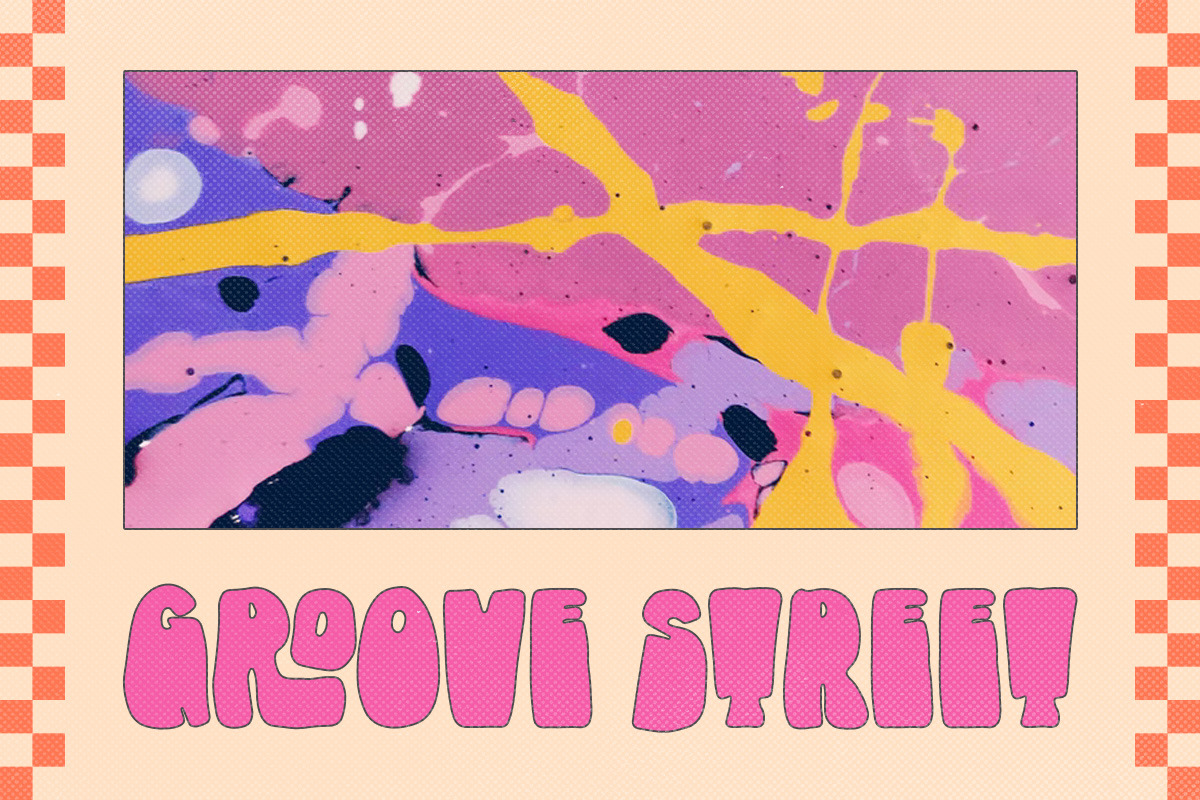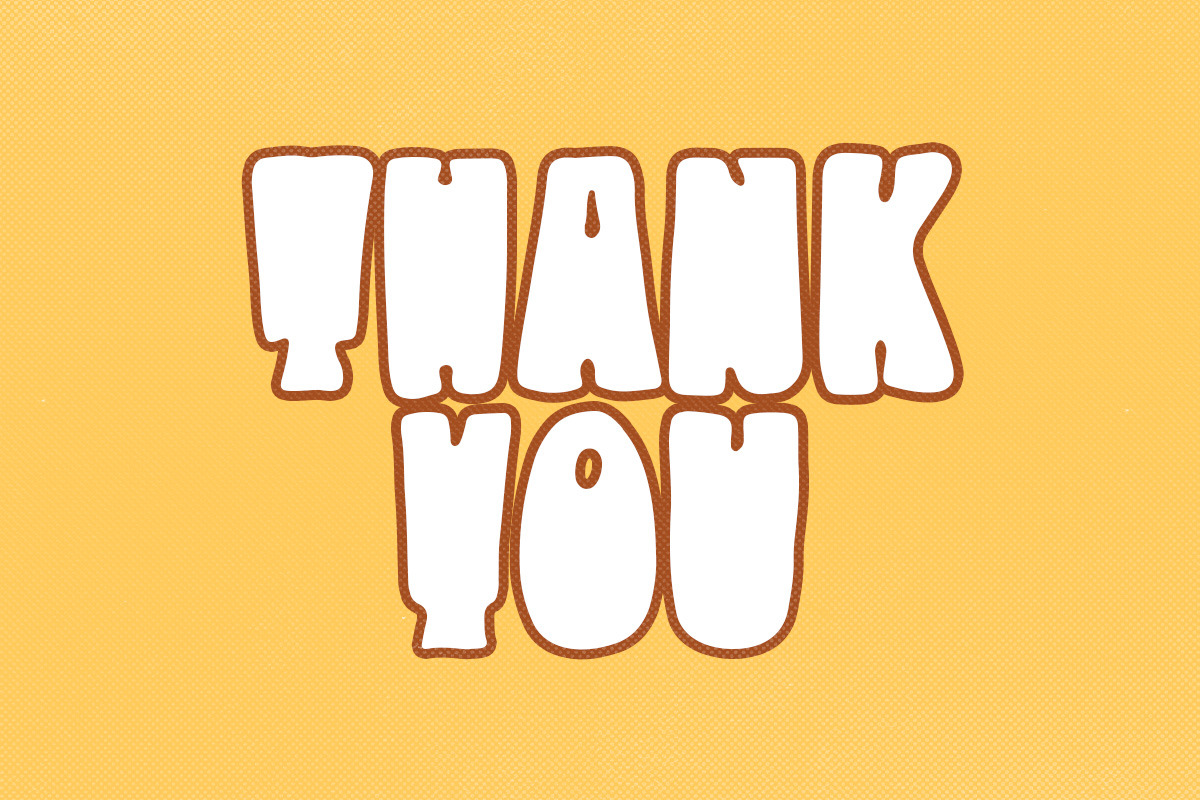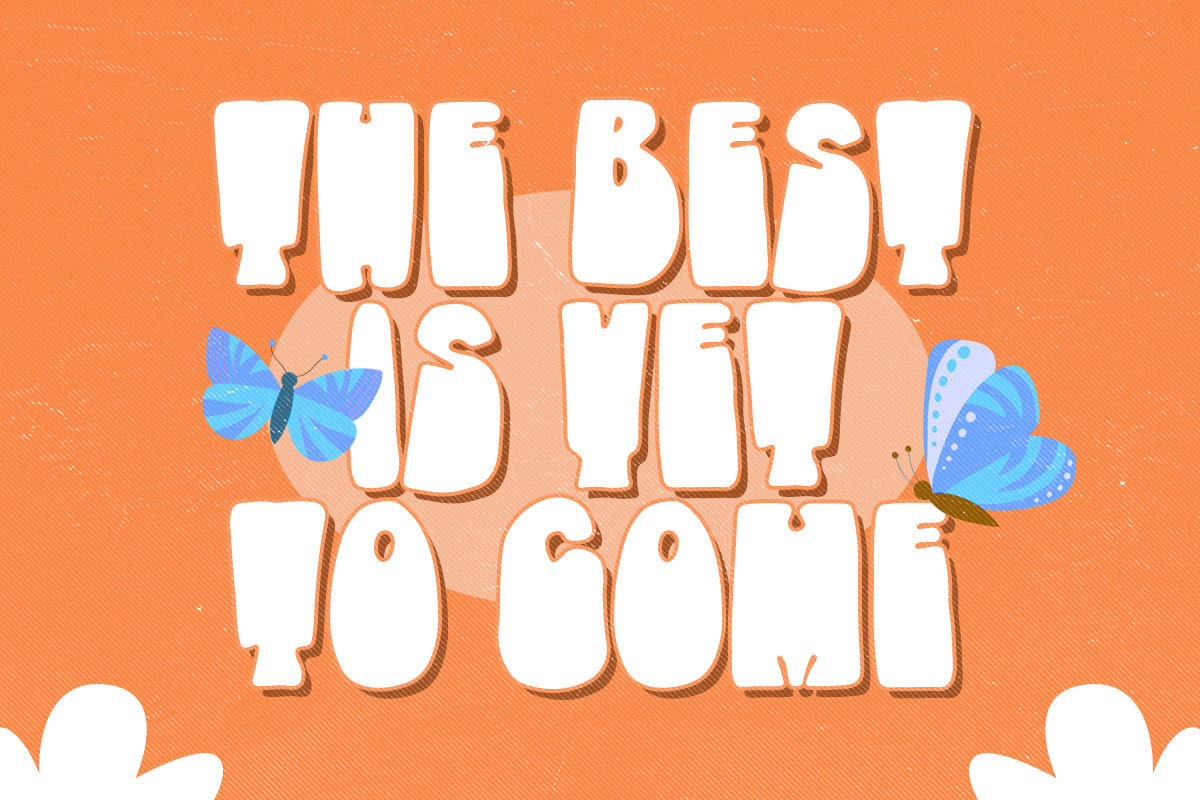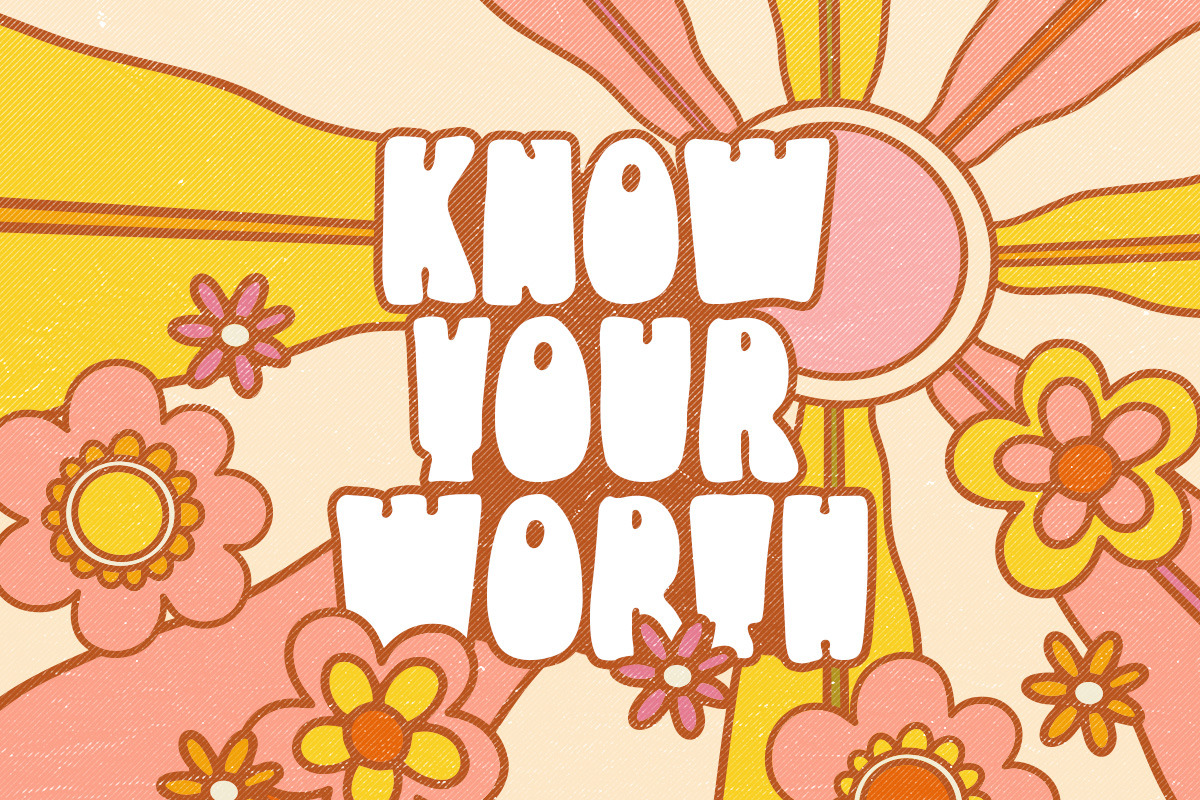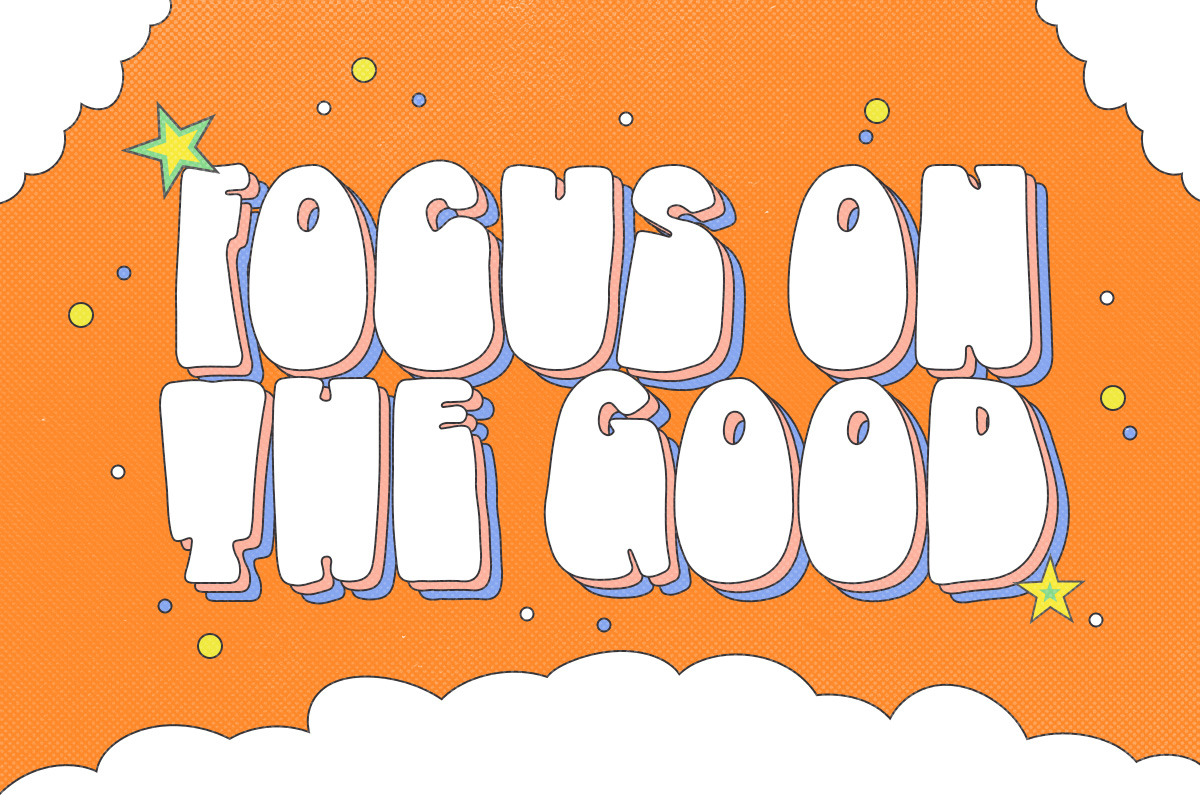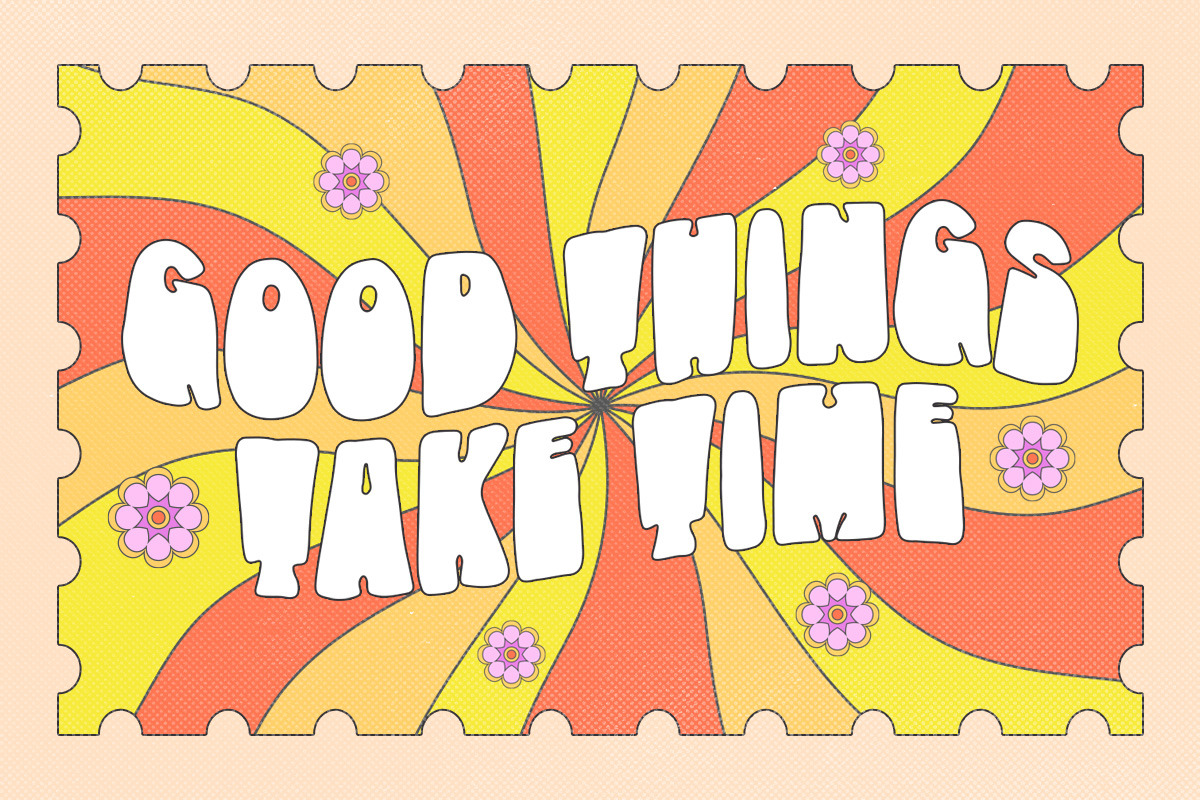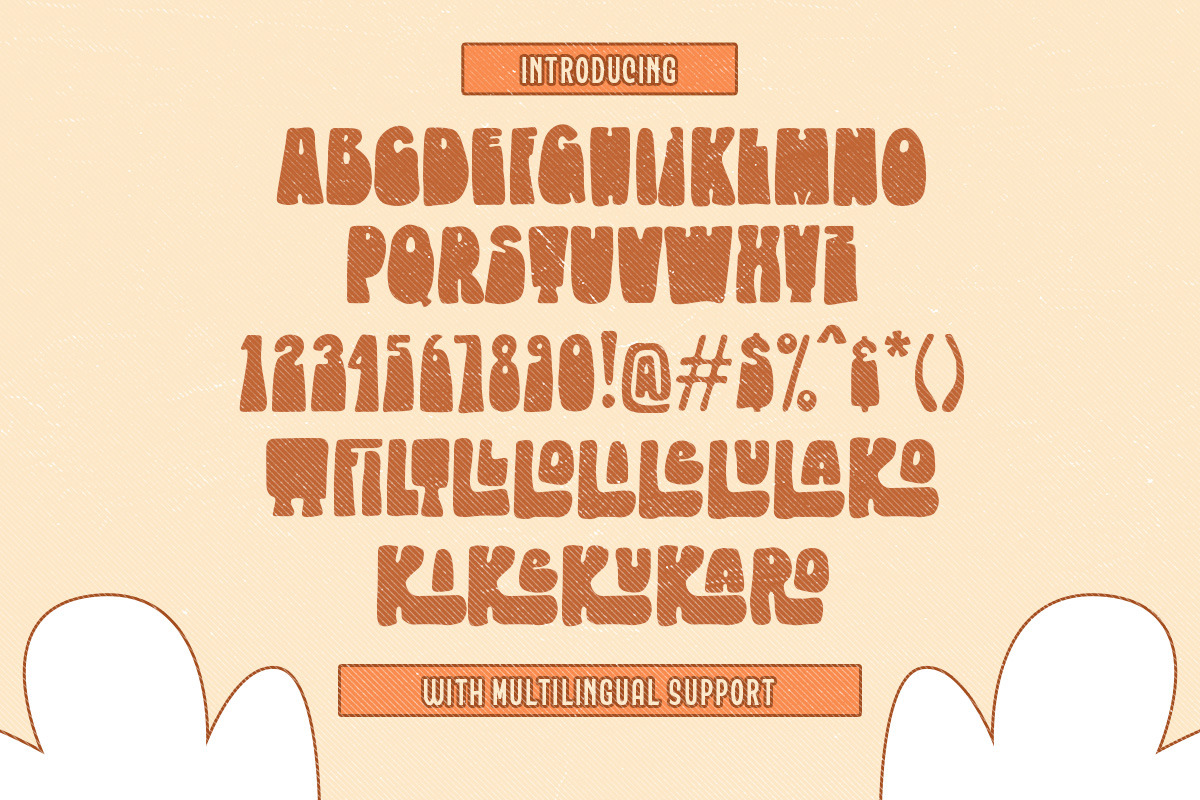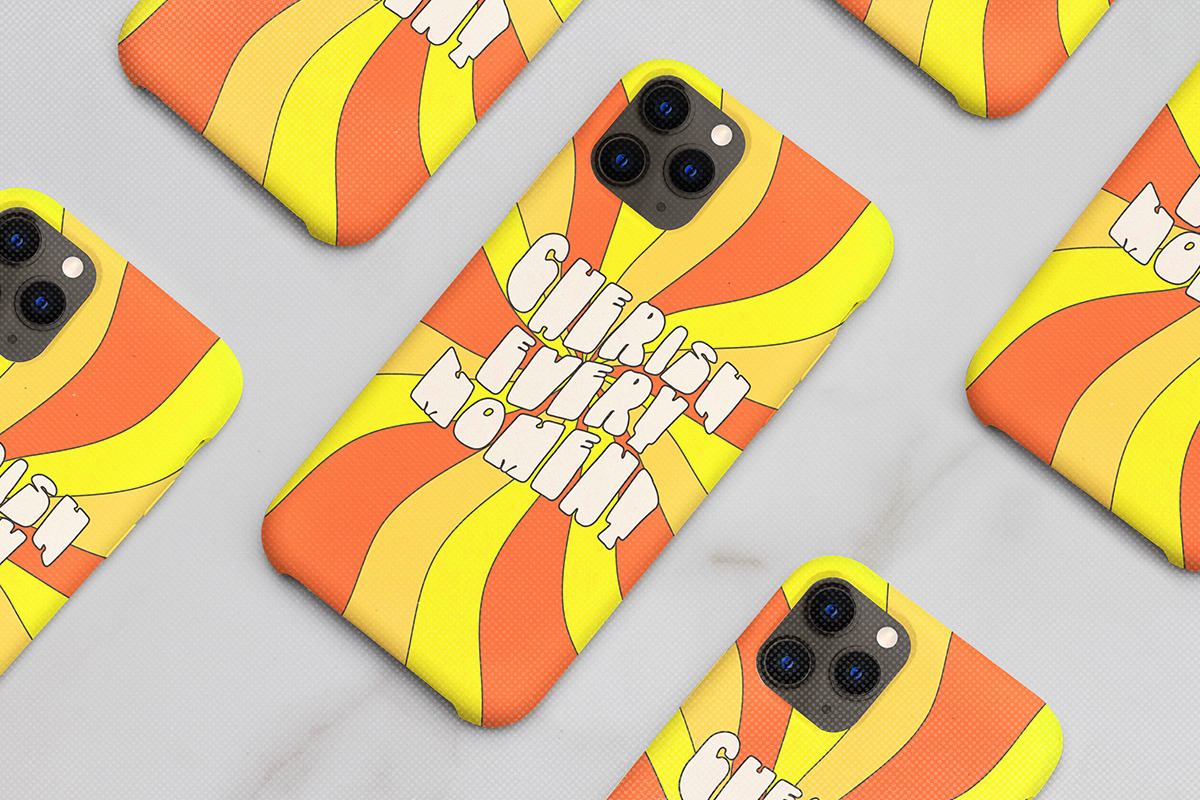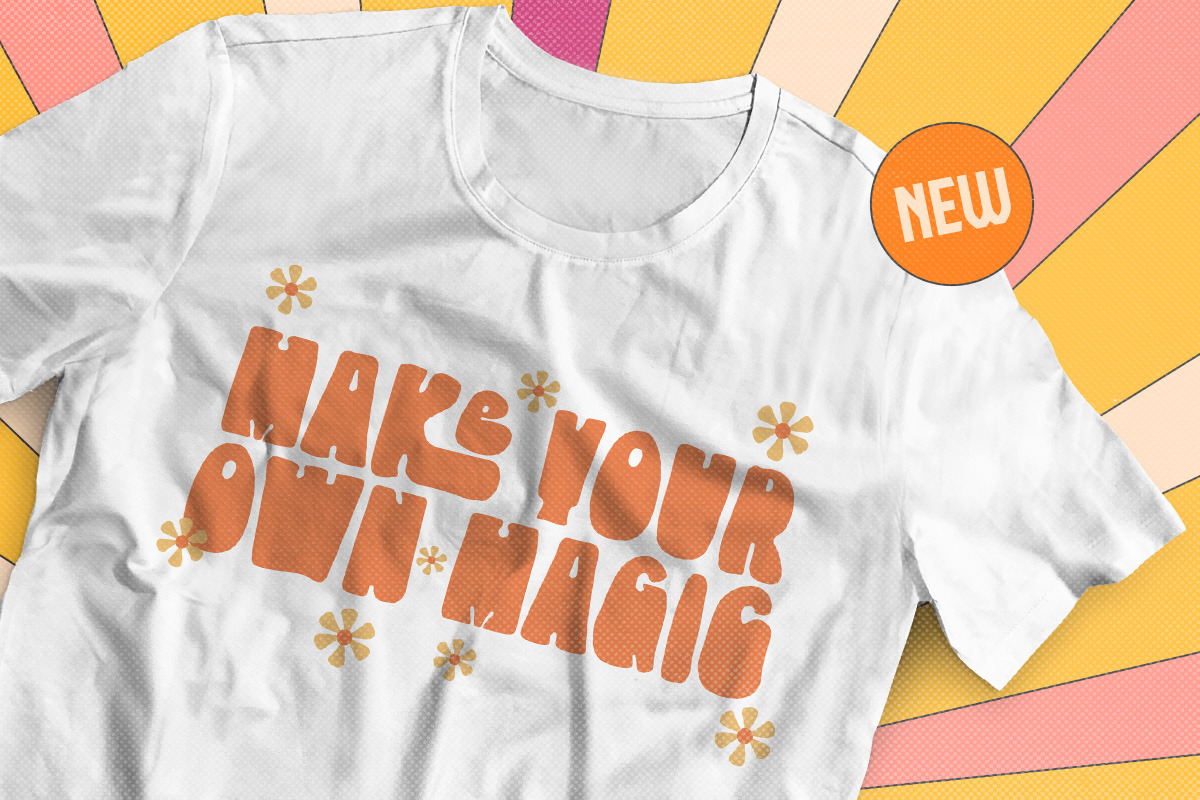
Glimpes of Groovy
Glimpes of Groovy is a retro bold font which will bring you back to 60s feel. This font perfectly made to be applied especially in logo, and the other various formal forms such as invitations, labels, logos, magazines, books, greeting / wedding cards, packaging, fashion, make up, stationery, novels, labels or any type of advertising purpose.